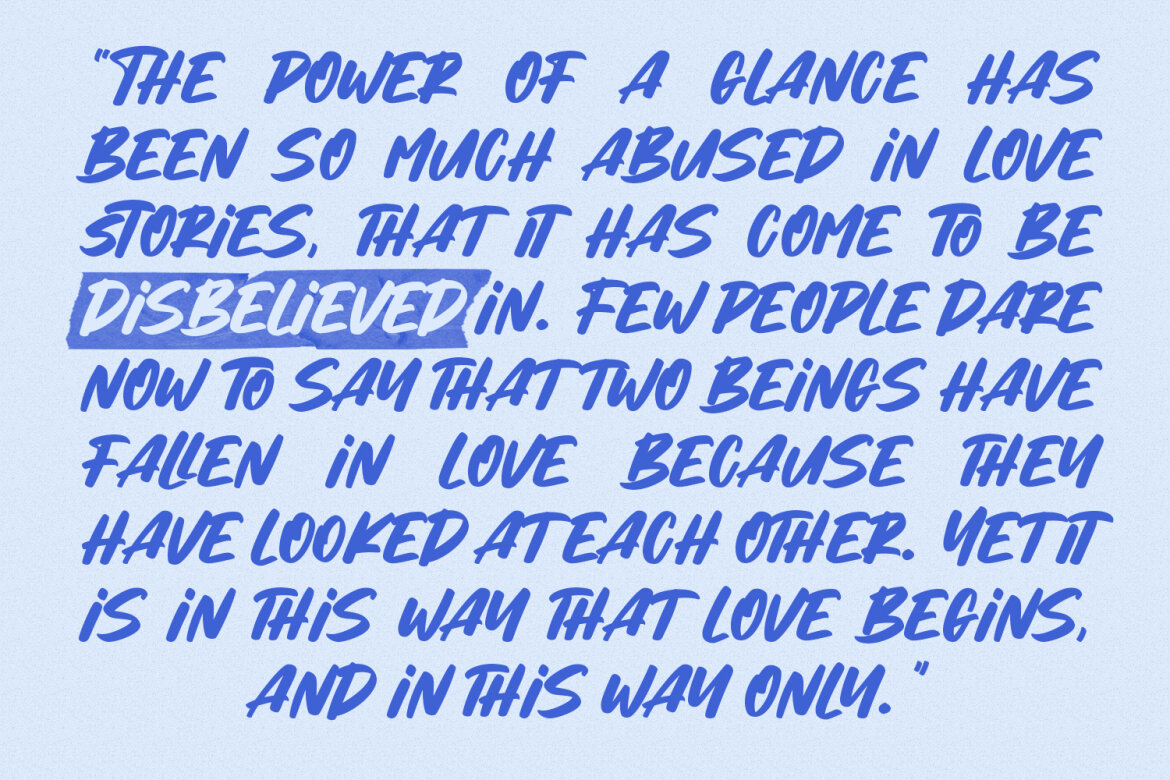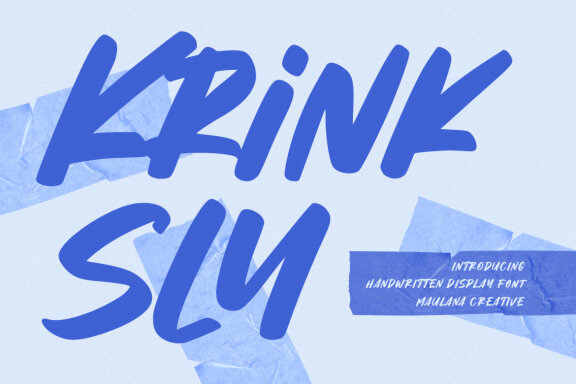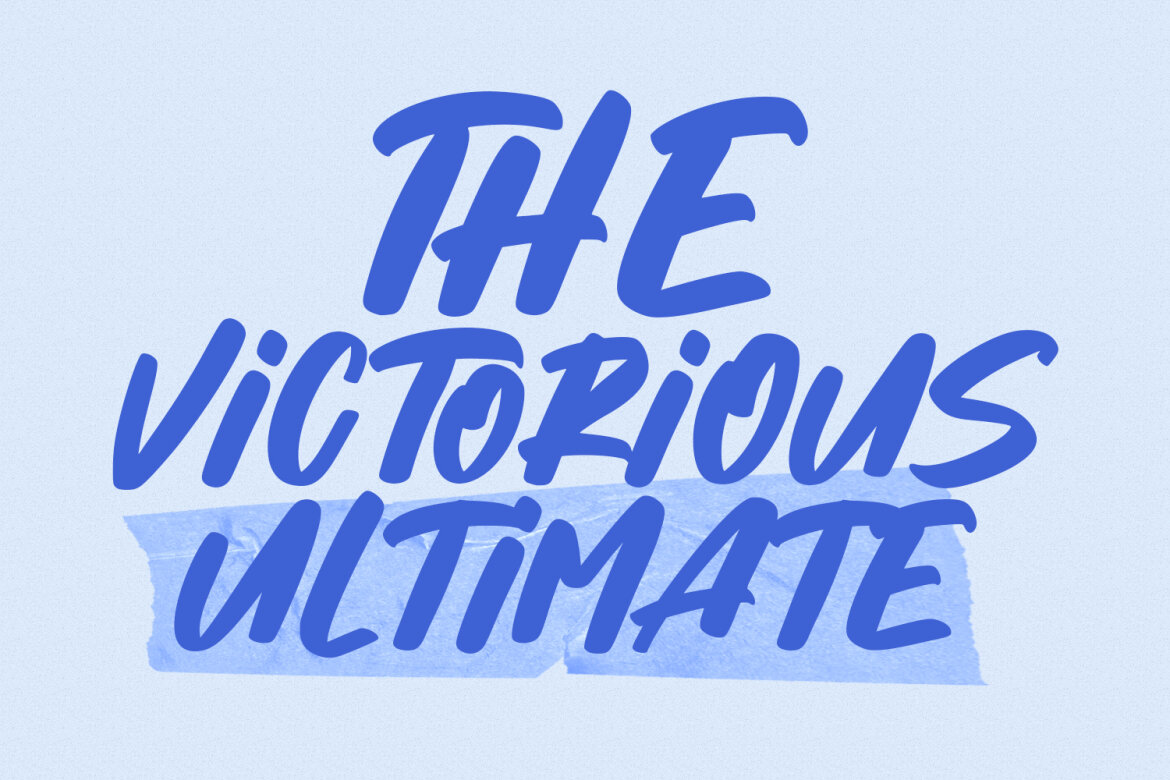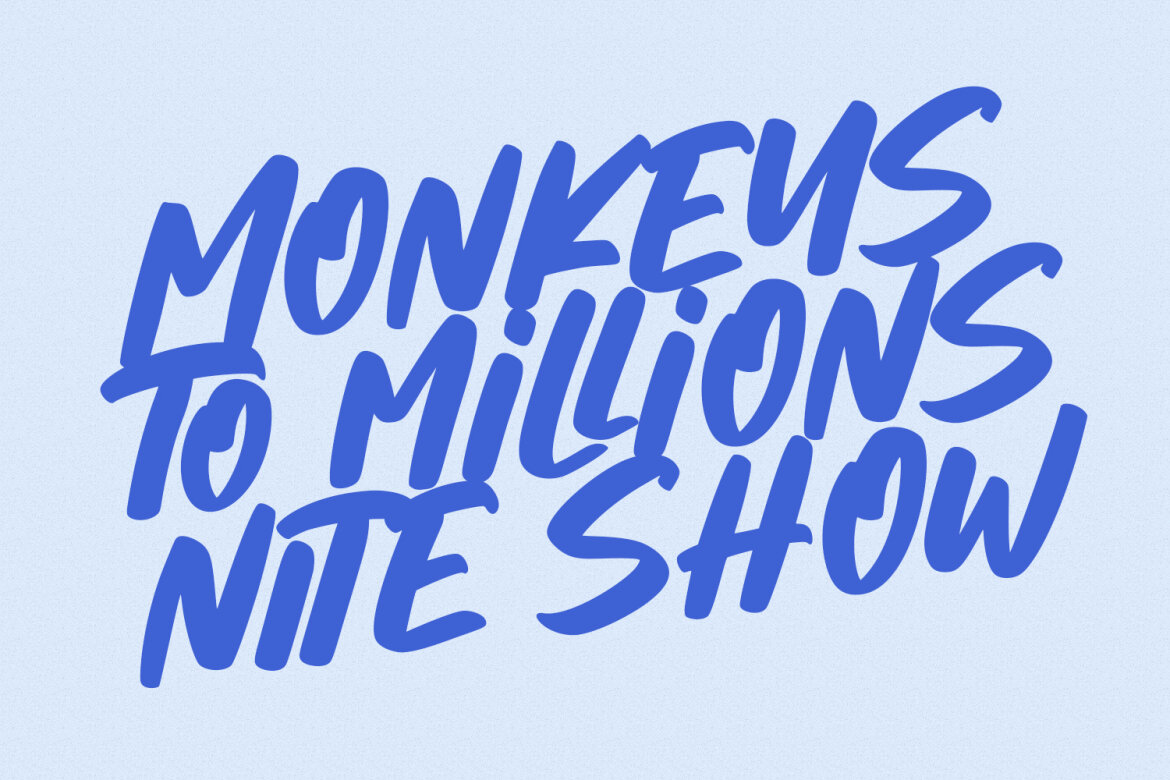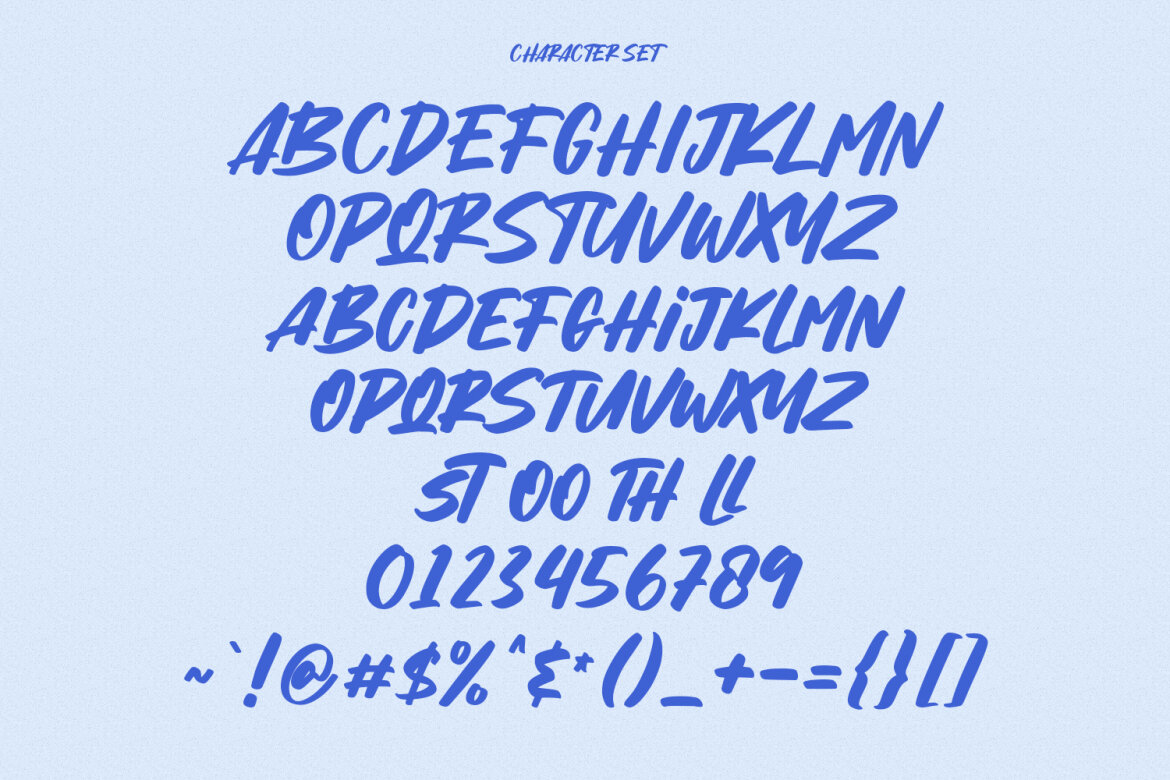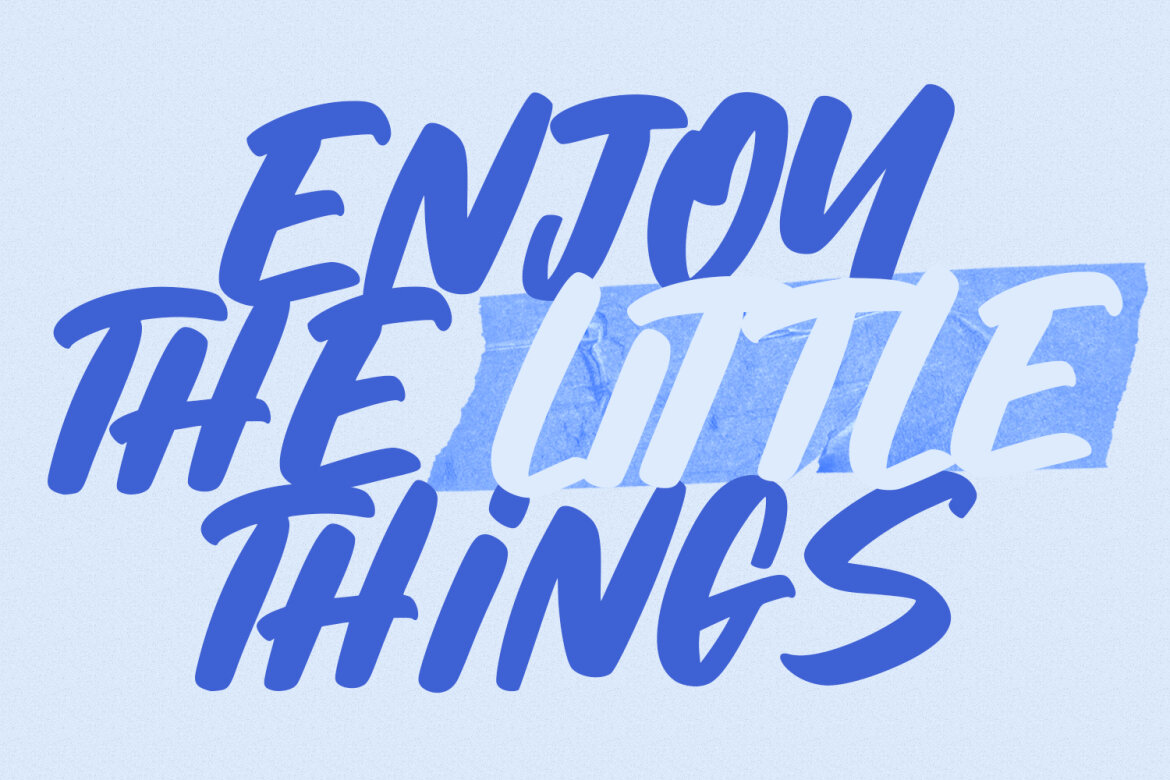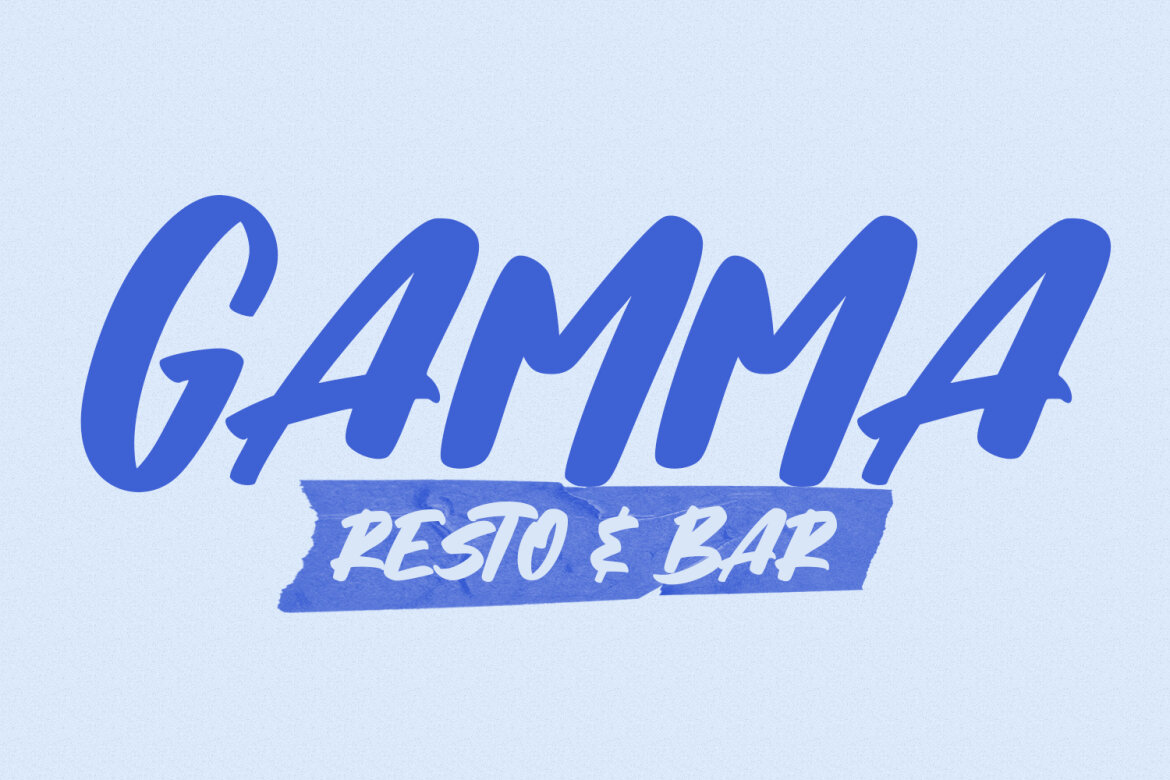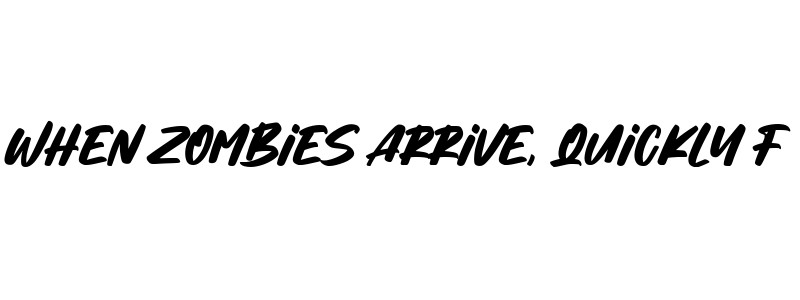
Krinksly Handwritten FREE Font
Krinksly
Krinksly is a fancy Handwritten font. With bold stroke, slanted and fun character with a bit of ligatures. To give you an extra creative work. Krinksly font support multilingual more than 100+ language. This font is good for logo design, Social media, Movie Titles, Books Titles, a short text even a long text letter and good for your secondary text font with script, sans or serif. Make a stunning work with Krinksly font.